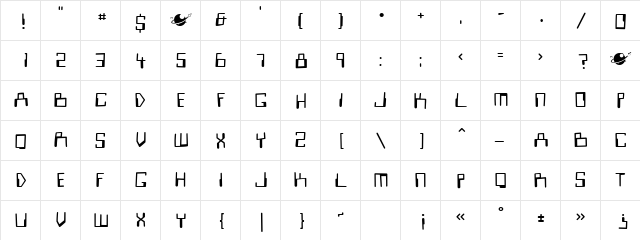
Look Sir, Droids Regular
Regular · Jared Foster Jared Foster ·
Design Context for Look Sir, Droids Typeface
Look Sir, Droids is a composed and adaptable typeface that performs quietly and consistently across a wide range of design contexts.